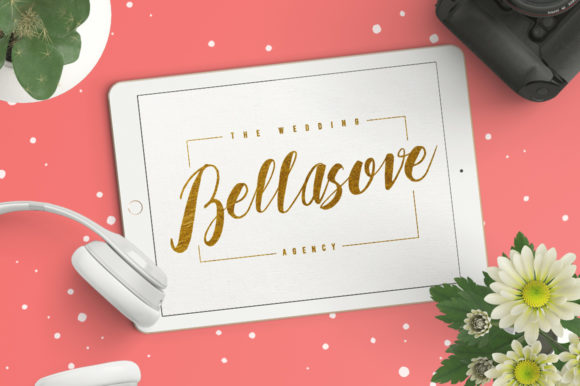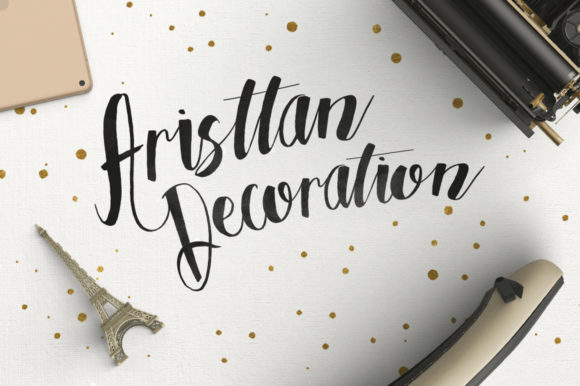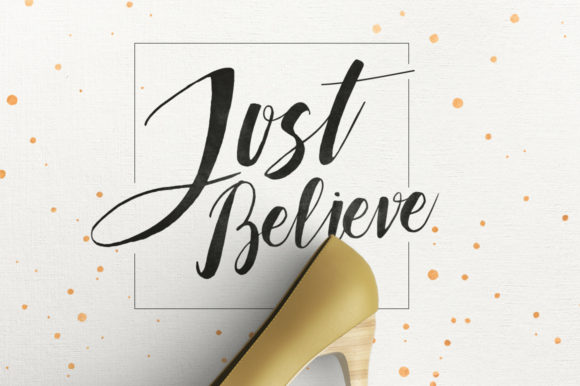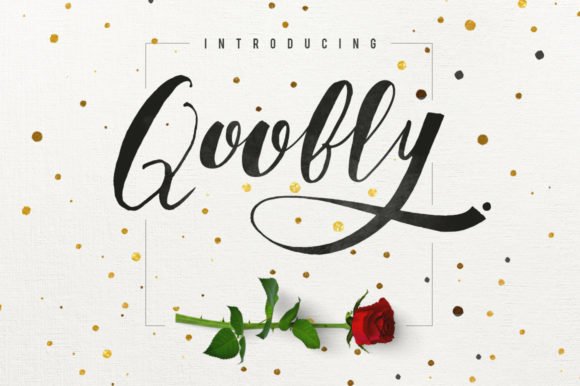
Introduction to Qoobly Font
Qoobly is a gorgeous handwritten font.
Give your designs an authentic brush handcrafted feel with this amazing typeface .